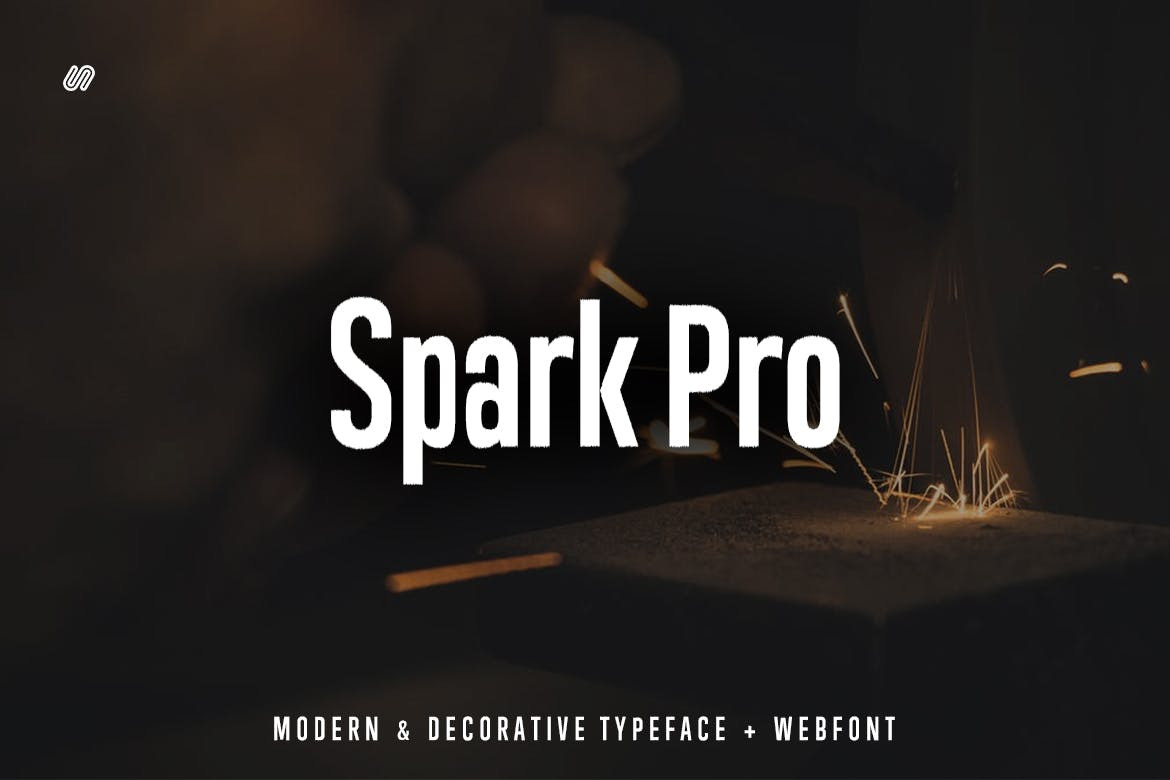
Spark Pro - Decorative Typeface
Spark Pro Sans Decorative Typeface
Spark Pro is a modern and Minimal Sans Serif typeface, Spark Pro can keep the minimalism at its level best and is a perfect choice for, Quotes, logo, doodle, heading, title, Big-texts. Classic & Decorative Typography Designs. The pack includes OTF, TTF, and Web Fonts (all EOT, TTF, WOFF included).